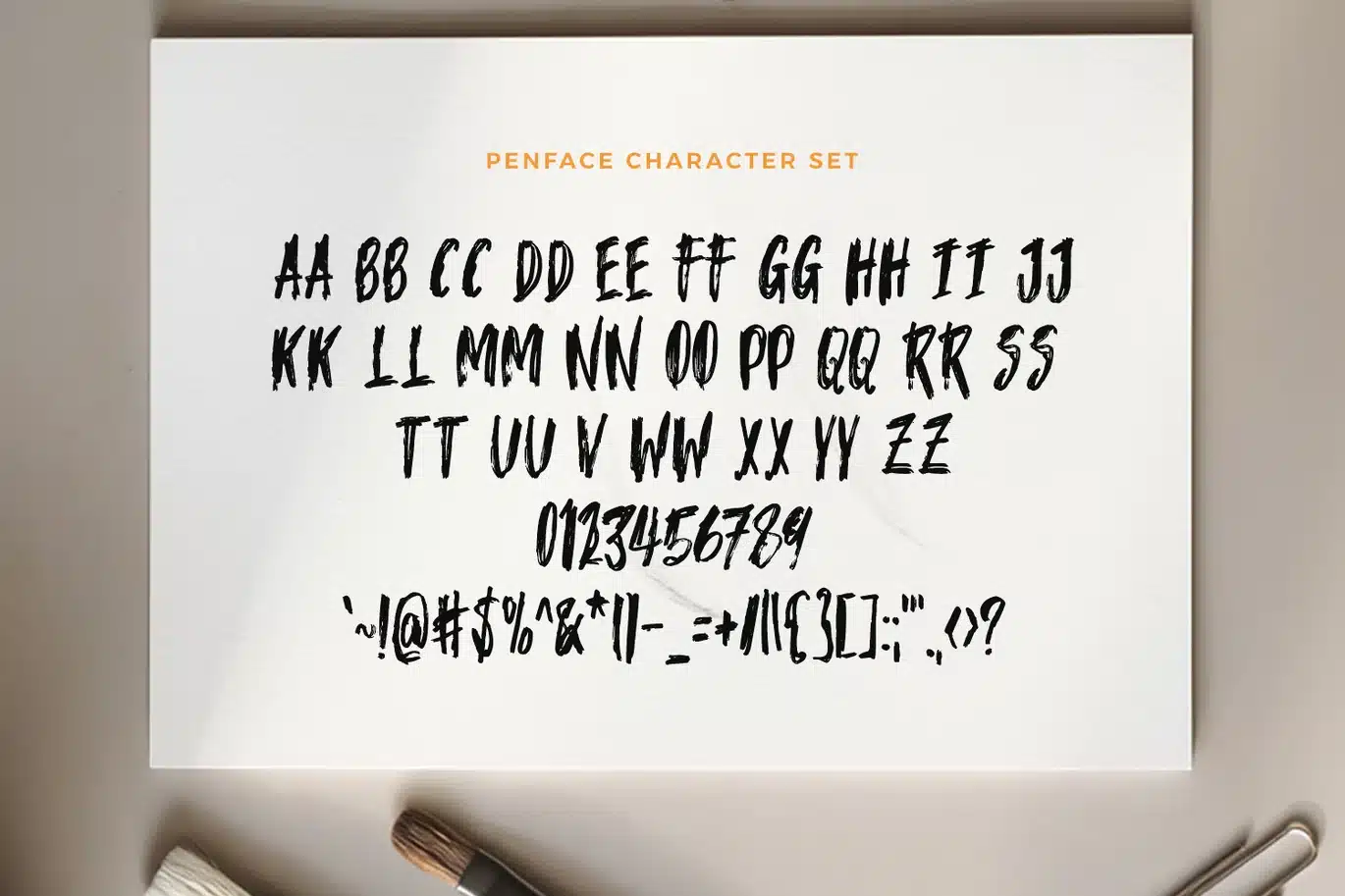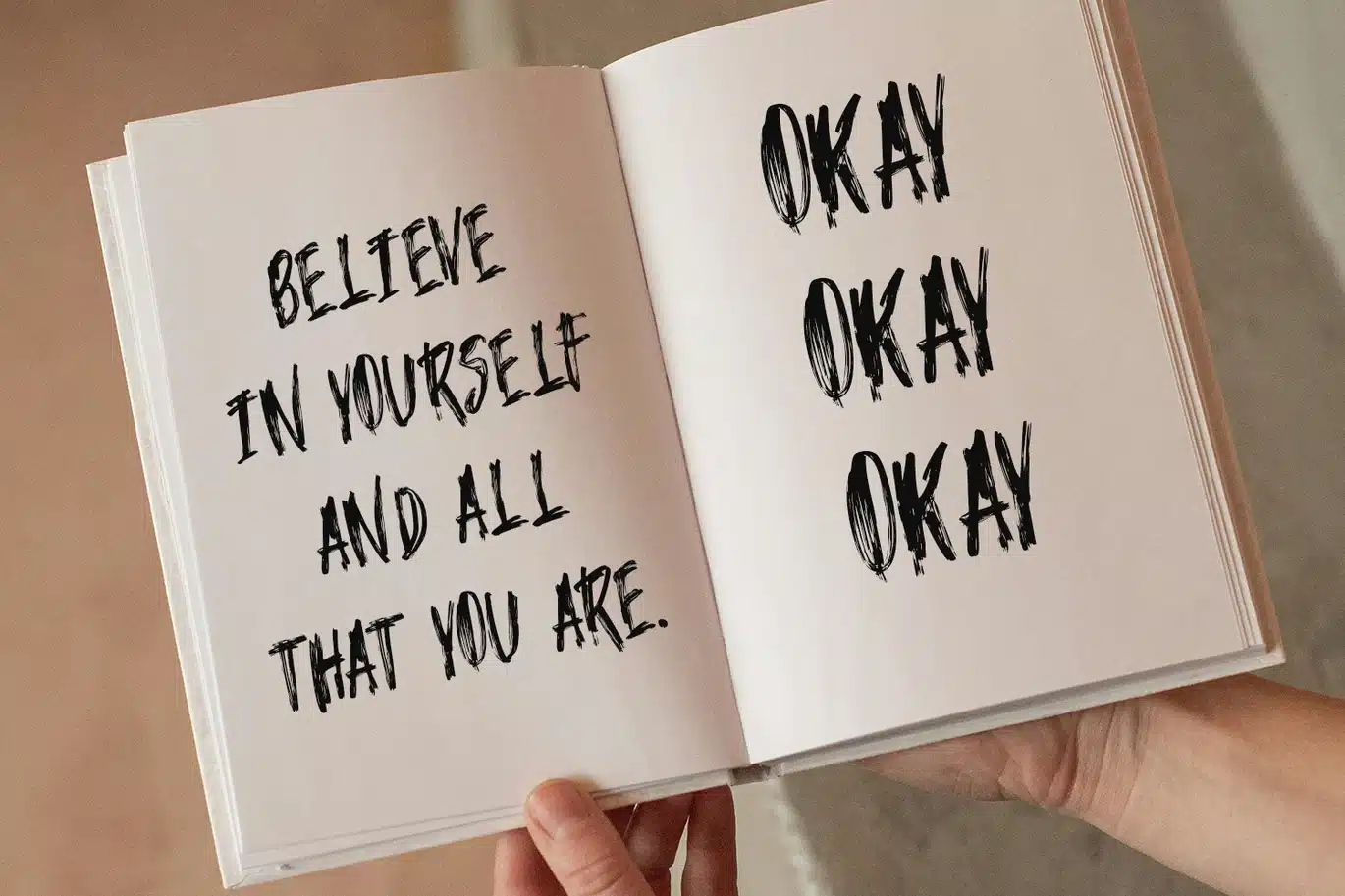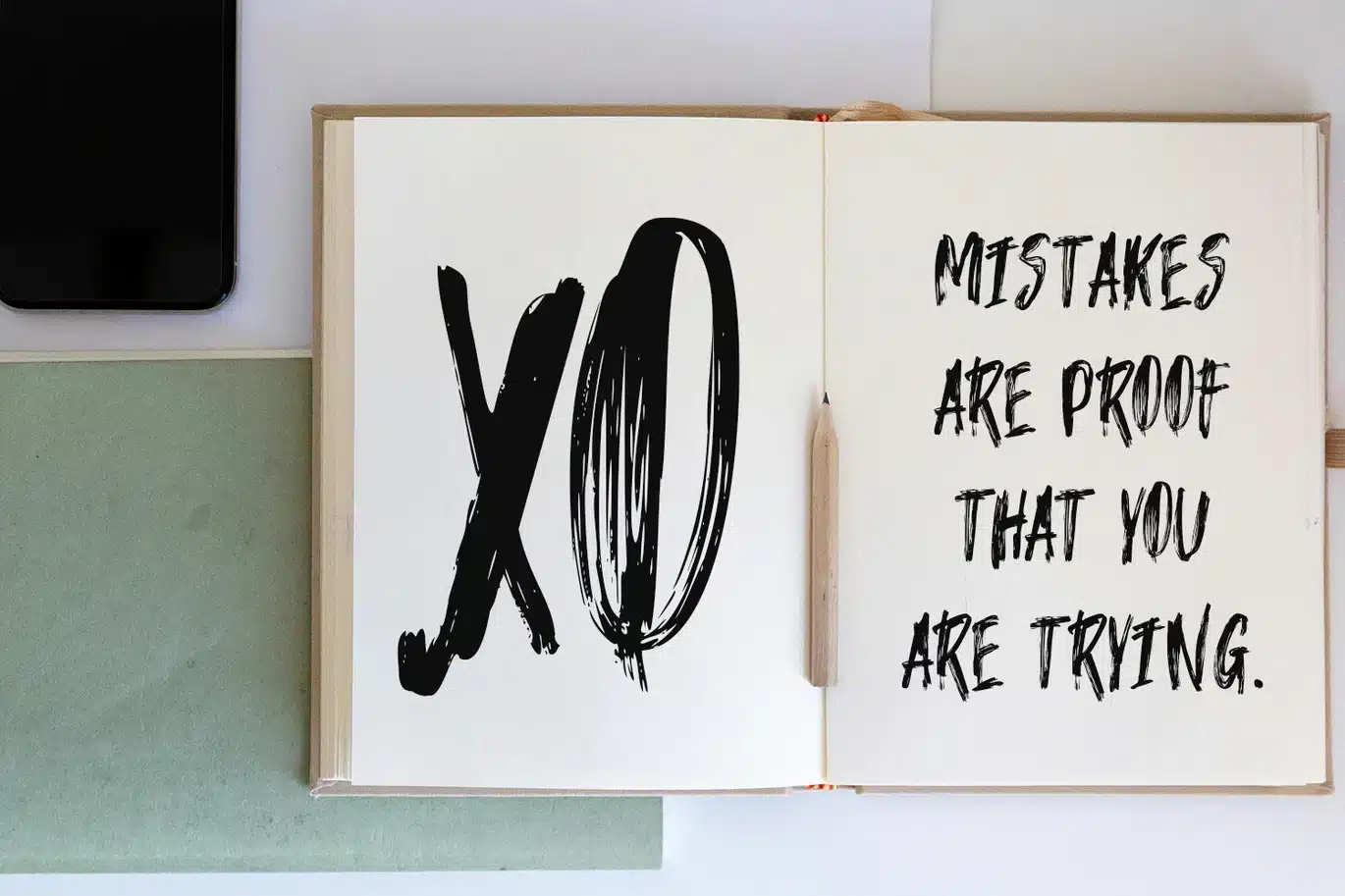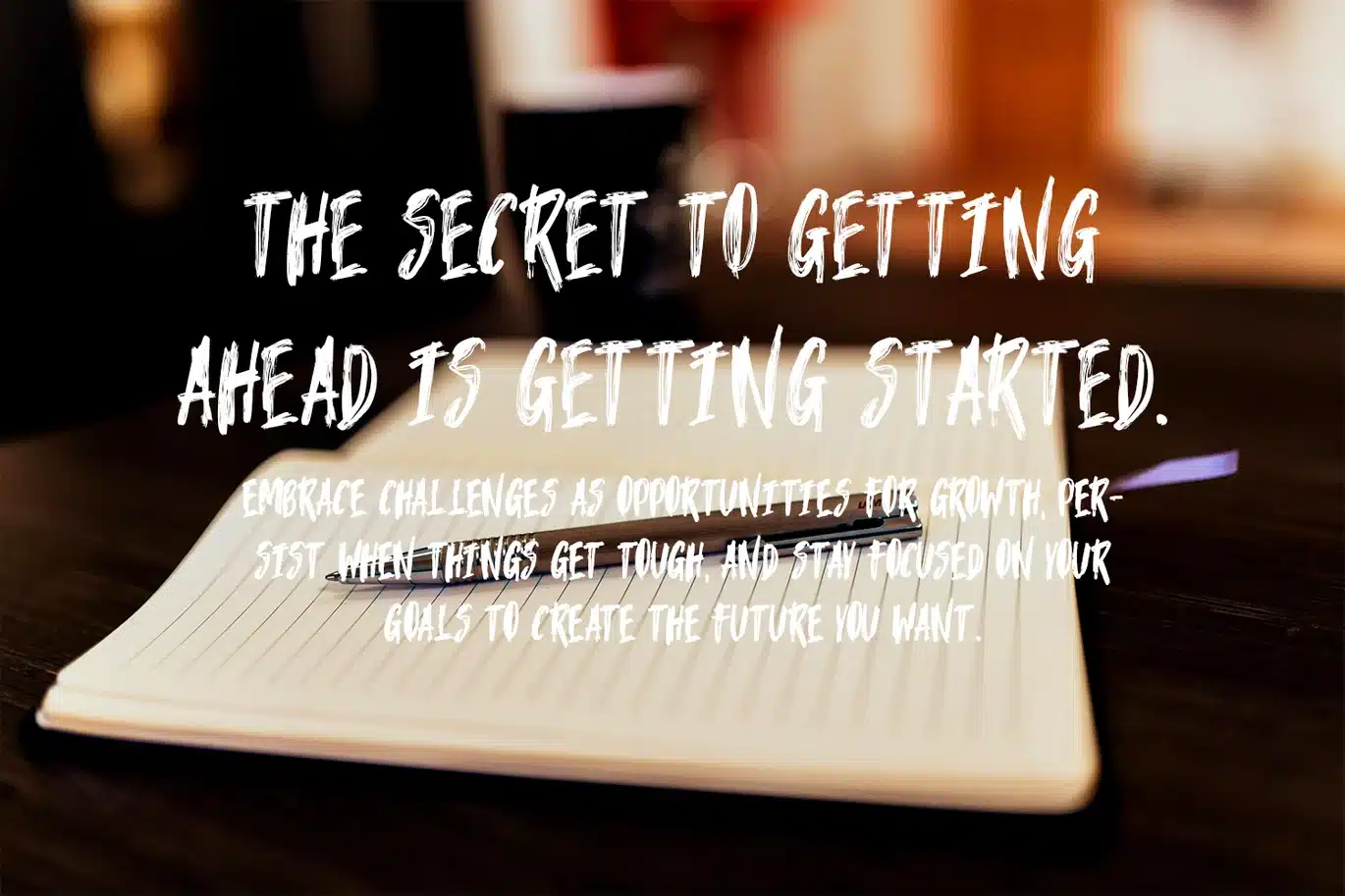
Penface – The Brush Marker Font
Penface - The Brush Marker Font
Penface is a brush marker font crafted with bold strokes and authentic marker texture. Inspired by real hand-drawn lettering, this font delivers a natural flow with a confident and expressive character. Its smooth curves and slightly rough edges create a perfect balance between casual energy and modern clarity.
Penface is perfect for branding, logos, headlines, posters, social media graphics, and creative projects that require a strong marker-style brush font with personality and readability.